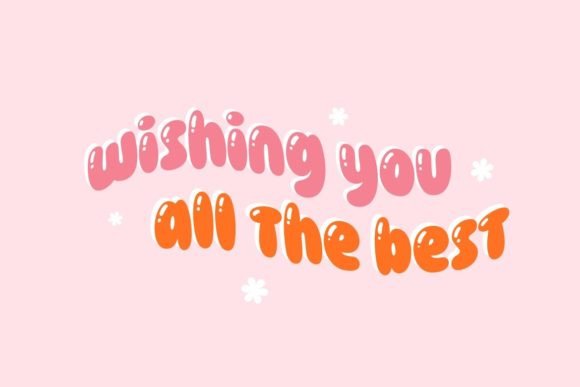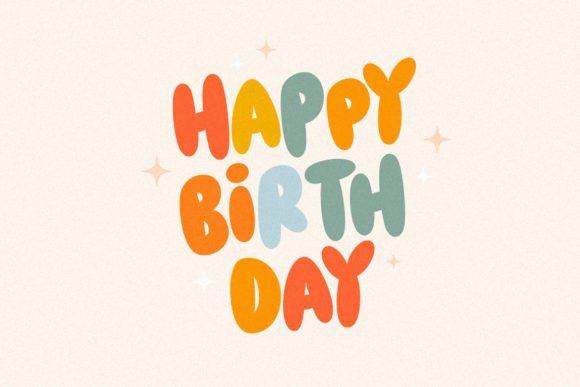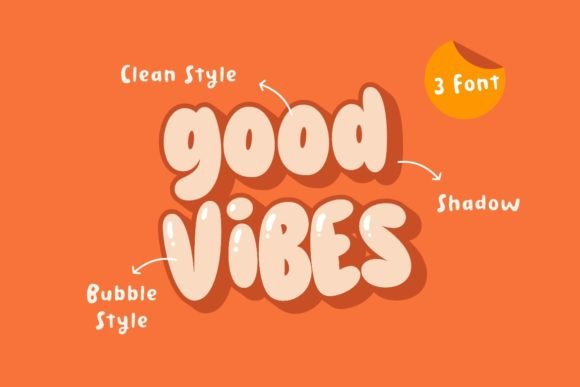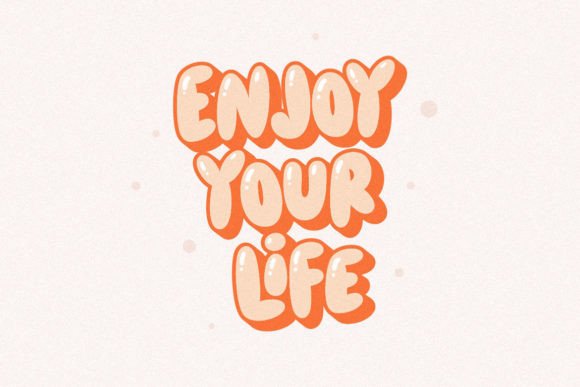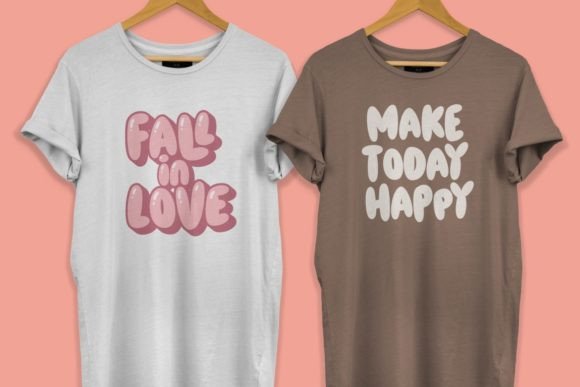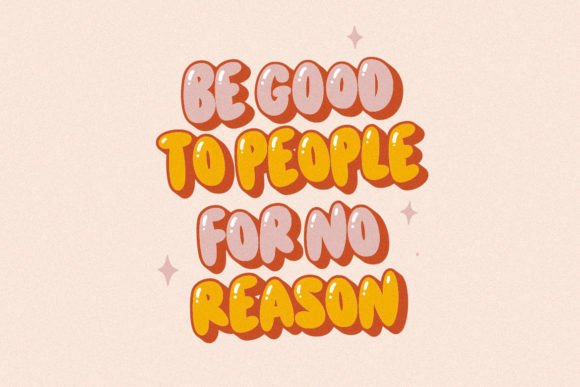
Introduction to Smothy Font
Have you ever stared at a blank design project, waiting for inspiration to strike? For designers, those moments can be a blessing and a curse – a chance to tap into our creativity and produce something truly special. For me, that moment came when I stumbled upon the Smothy Font, a delightful display font that instantly sparked a wave of ideas.
As a design resource, Smothy Font offers an unparalleled level of versatility, with its cute and fun bubble style making it the perfect addition to any creative project. Whether you’re working on a whimsical children’s book, a playful social media campaign, or a beautifully crafted graphic novel, Smothy Font’s transparent background and high-quality design make it a valuable asset for designers looking to elevate their work.
Key Features of Smothy Font
- Unique, modern design aesthetic that adds a touch of sophistication to any creative project.
Honest Review: Smothy Font
As a designer, I’m always on the lookout for high-quality design resources that can elevate my creative projects. Recently, I had the chance to work with the Smothy Font, and I’m excited to share my honest review.
What works well: ✨ The Smothy Font has a unique and modern aesthetic that’s perfect for a variety of design projects. The font is highly customizable, with a range of styles and weights to choose from. It’s also incredibly easy to use, with a transparent background that makes it simple to layer over images and other design elements.
What doesn’t work well: ⚠️ While the Smothy Font is generally high-quality, I did encounter some issues with font rendering on certain platforms. Additionally, the font library is a bit limited compared to some other design resources.
Overall impression: I was impressed with the Smothy Font’s unique aesthetic and high-quality design. While it may have some limitations, it’s a great resource for designers who want to add some modern flair to their creative projects.
Smothy Font is a versatile design resource ideal for various creative projects. With its unique style and high-quality aesthetic, it’s perfect for designers looking to elevate their work.
To get the most out of Smothy Font, use it in conjunction with a transparent background to create a clean and modern design aesthetic.